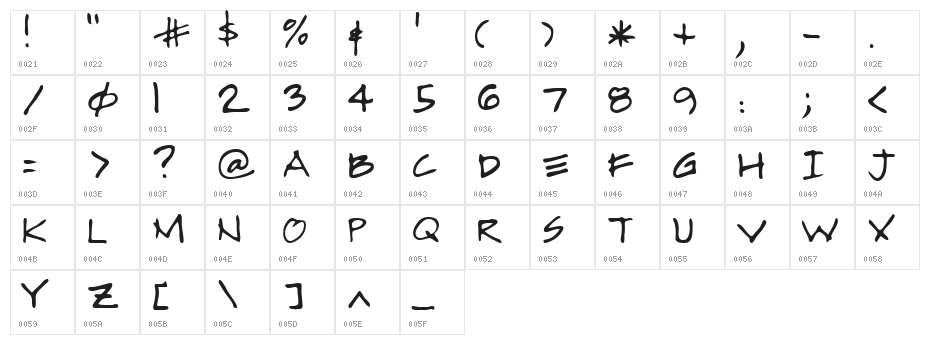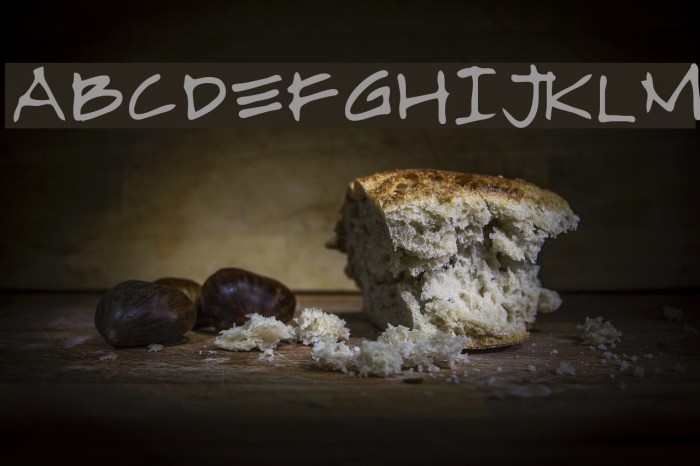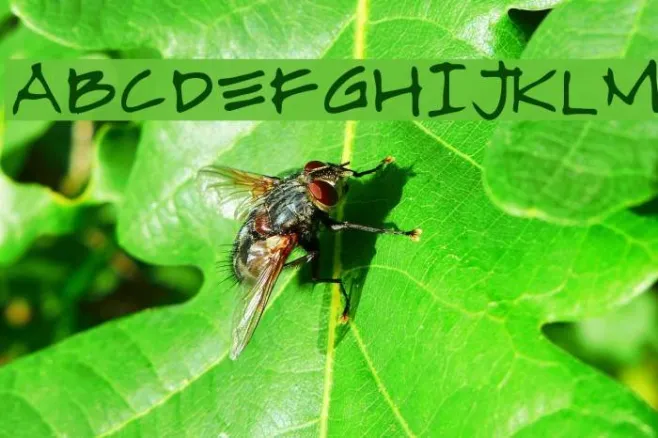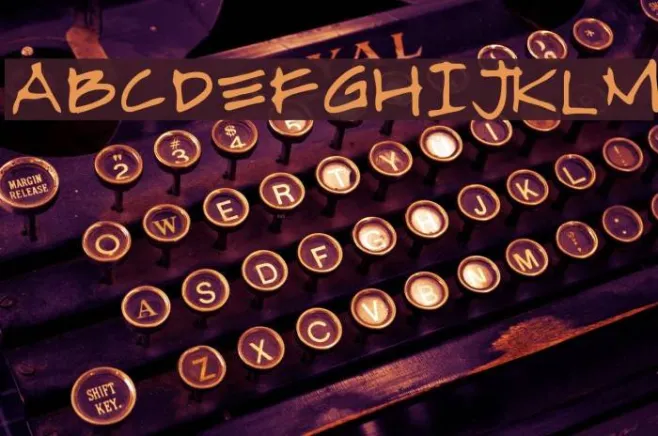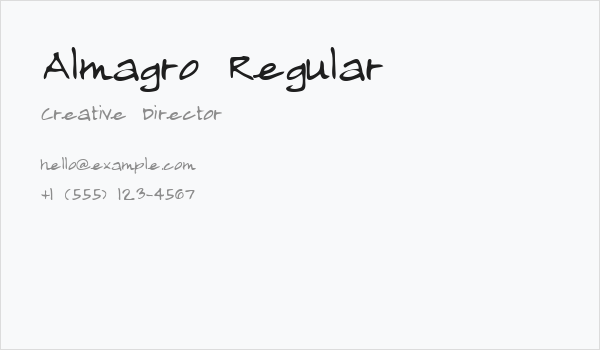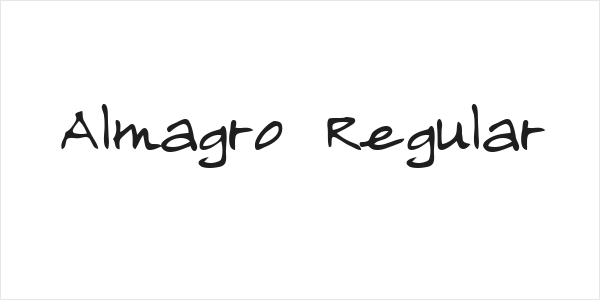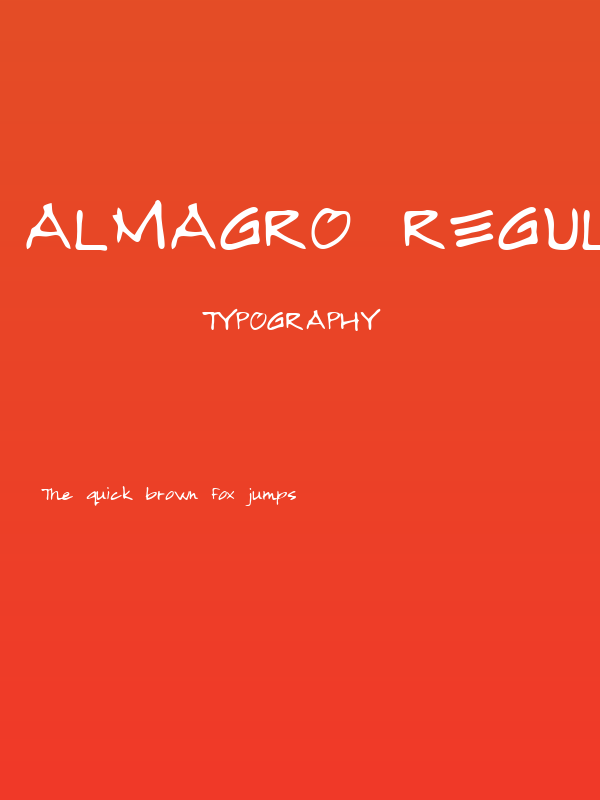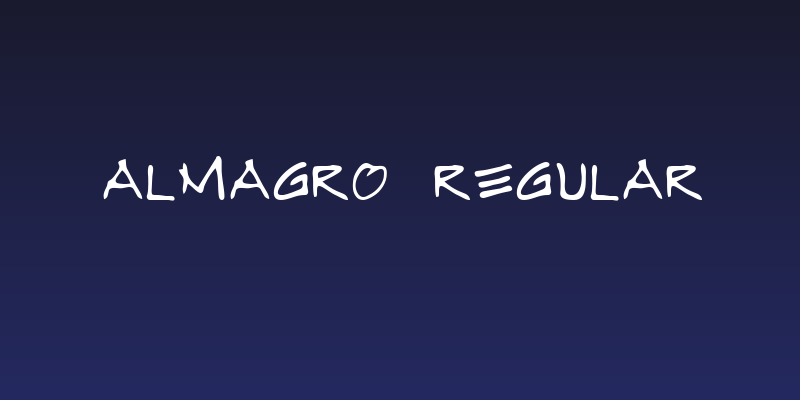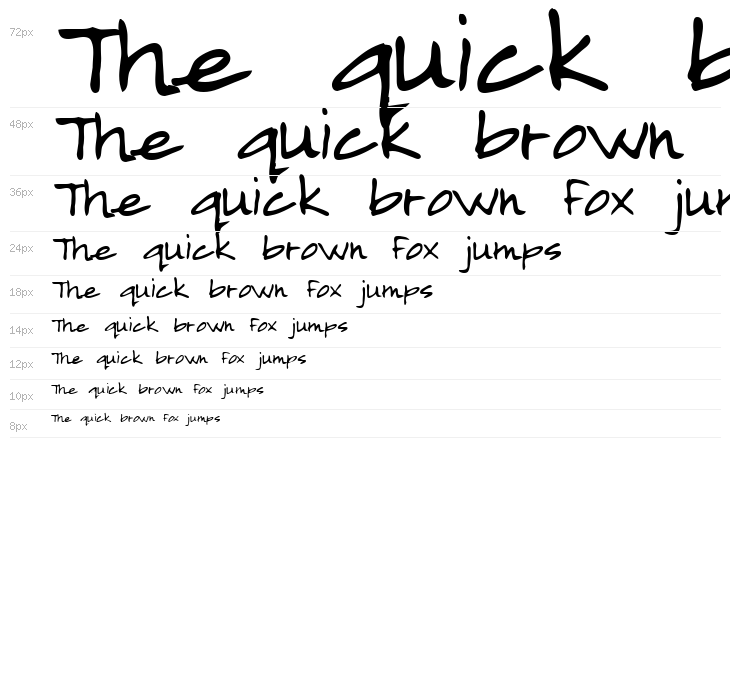
Almagro Regular Font
Almagro Regular Description
This font features a playful and dynamic handwritten style, characterized by its fluid and slightly irregular strokes. The uppercase and lowercase letters exhibit a casual yet expressive appearance, with a consistent flow that mimics natural handwriting. The numerals and special characters maintain this lively aesthetic, ensuring a cohesive look across all glyphs. The font's organic curves and varied line thickness contribute to its approachable and friendly vibe, making it suitable for projects that require a personal touch.
Overall StyleCasual
Use CaseLogos, Invitations, Personal Branding
Proposed ProjectsIdeal for greeting cards, personal branding, casual invitations, and creative projects that benefit from a handwritten touch.